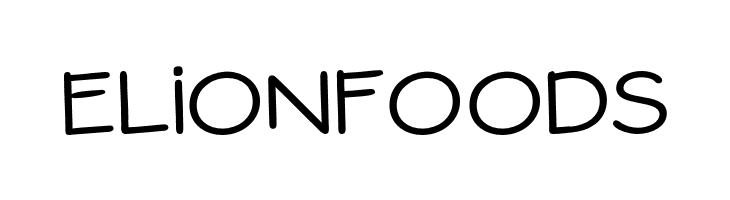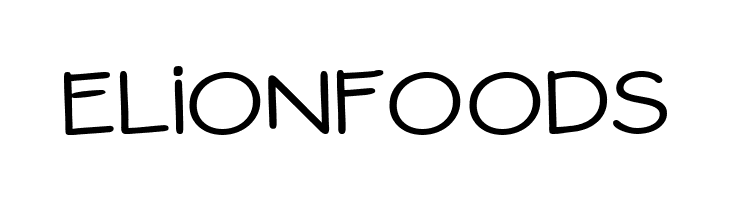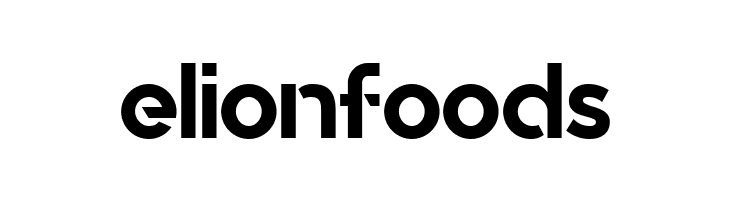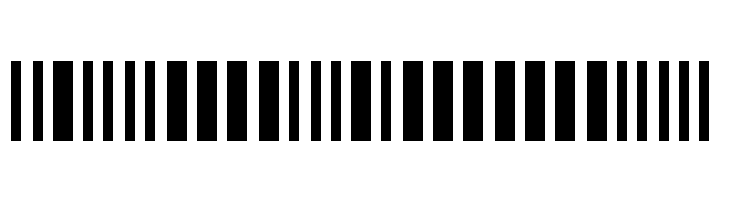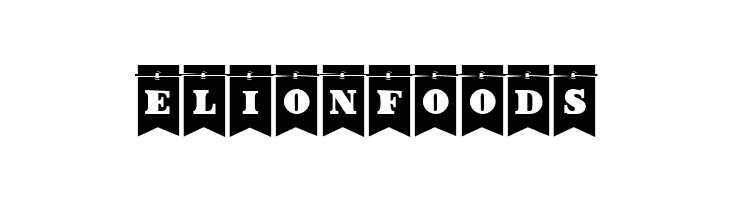
( Michael Hassler - hassified.blogspot.com/ )
A bold, handwritten-style font with a modern, architectural aesthetic.
( Michael Hassler - hassified.blogspot.com/ )
A playful, hand-drawn style font with bold, rounded characters.
( Sentype - Saidi Senhikari - www.behance.net/Senhikari )
A bold, geometric font with sharp angles and clean lines, perfect for modern designs.
( Steve Gardner - www.explogos.com )
A clean, structured serif font with medium contrast and excellent readability.
( Techno Cool XYZ )
A monospaced font with a clean, geometric style, ideal for technical use.
( TwoNineFive - Maximillian Limpo )
An artistic Morse code representation using vertical bars.
( Vladimir Nikolic - www.coroflot.com/vladimirnikolic )
A hollow, regular Braille font for visual representation.
( Vladimir Nikolic - www.coroflot.com/vladimirnikolic )
A Braille font representing characters with raised dot patterns for tactile reading.
( Vladimir Nikolic - www.coroflot.com/vladimirnikolic )
Bold, decorative font with a playful, banner-like presentation.
( Volker Busse - F25 Digital Typeface Design - Volker Busse - www.grafikkontor-mitte.de )
A bold, monospaced font with uniform strokes and clear readability.